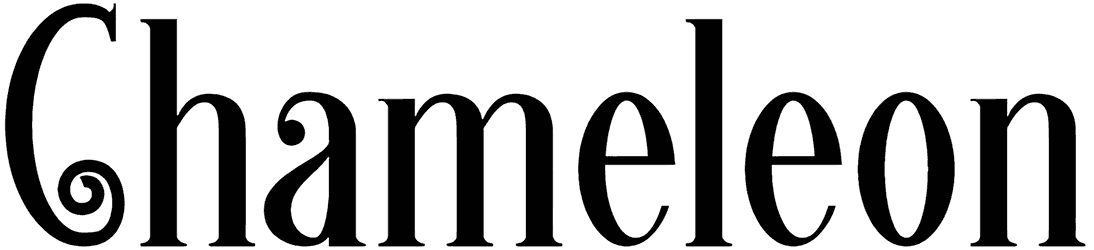
Chameleon Font
For all of you who are thirsty for inserting a genuine reflection on your projects, the serif font is a well-paid job. This artwork with a friendly and holiday face can communicate with all individuals to arouse their interest and attention instantly.